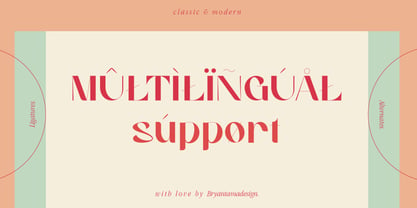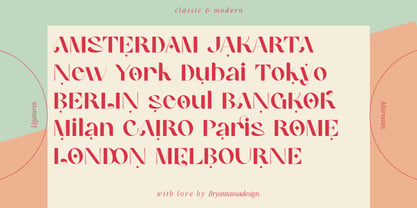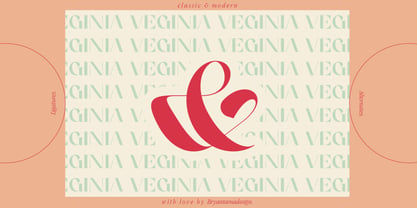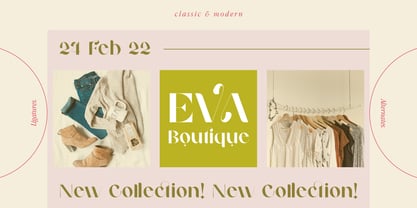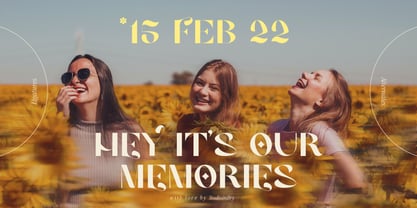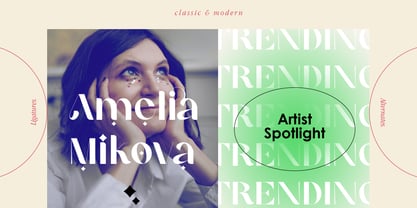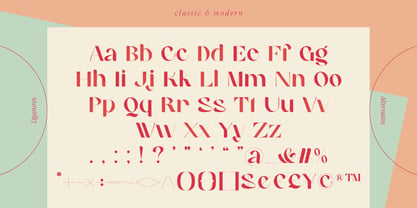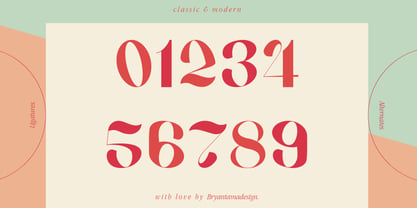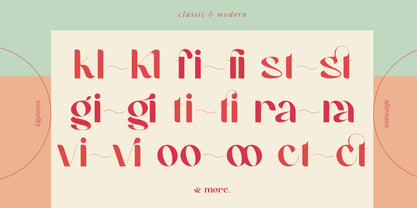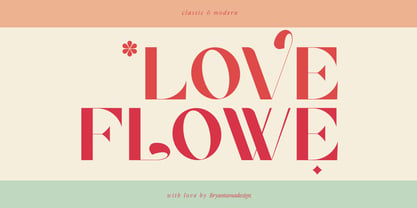
Klauge
par Bryantamanh
La famille de polices Klauge a été conçue par Bryantama Nur Hidayat Suyoto et publiée par Bryantamanh. Klauge contient 1 styles. En savoir plus sur cette famille
Introducing Klauge, a classic and modern font that embodies a classy theme with magical feels, giving it a unique personality. Perfect for branding, social media, posters, packaging, and more, Klauge offers a complete set of uppercase and lowercase letters, numbers, and punctuation. With OpenType features including alternates and ligatures, it also provides multilingual support. Elevate your designs with Klauge Font, a sophisticated display typeface characterized by sleek lines and refined curves. Crafted for high-end branding, editorial layouts, and luxury packaging, it delivers an effortless sense of class and exclusivity. Experience the beauty of Klauge!